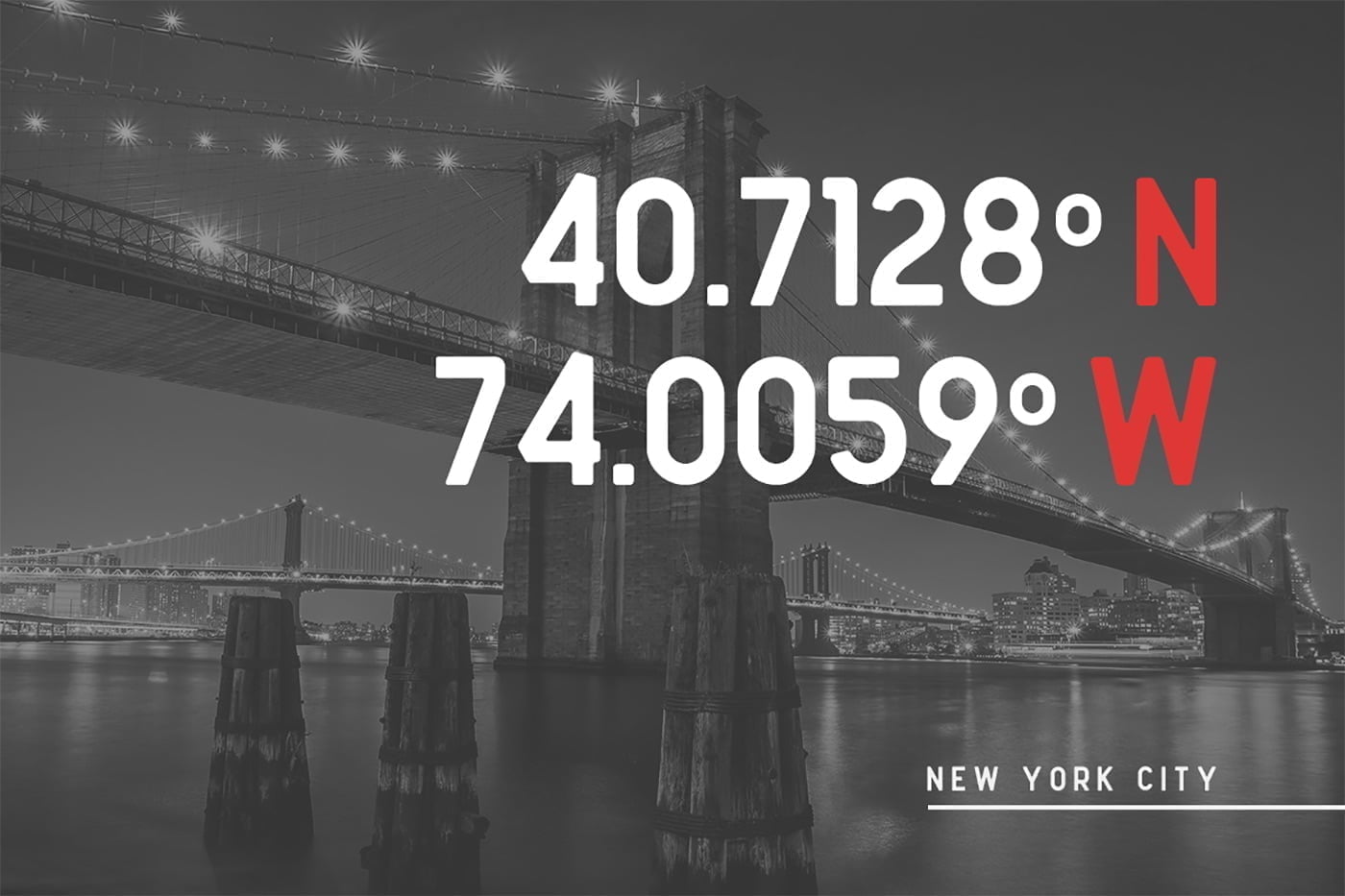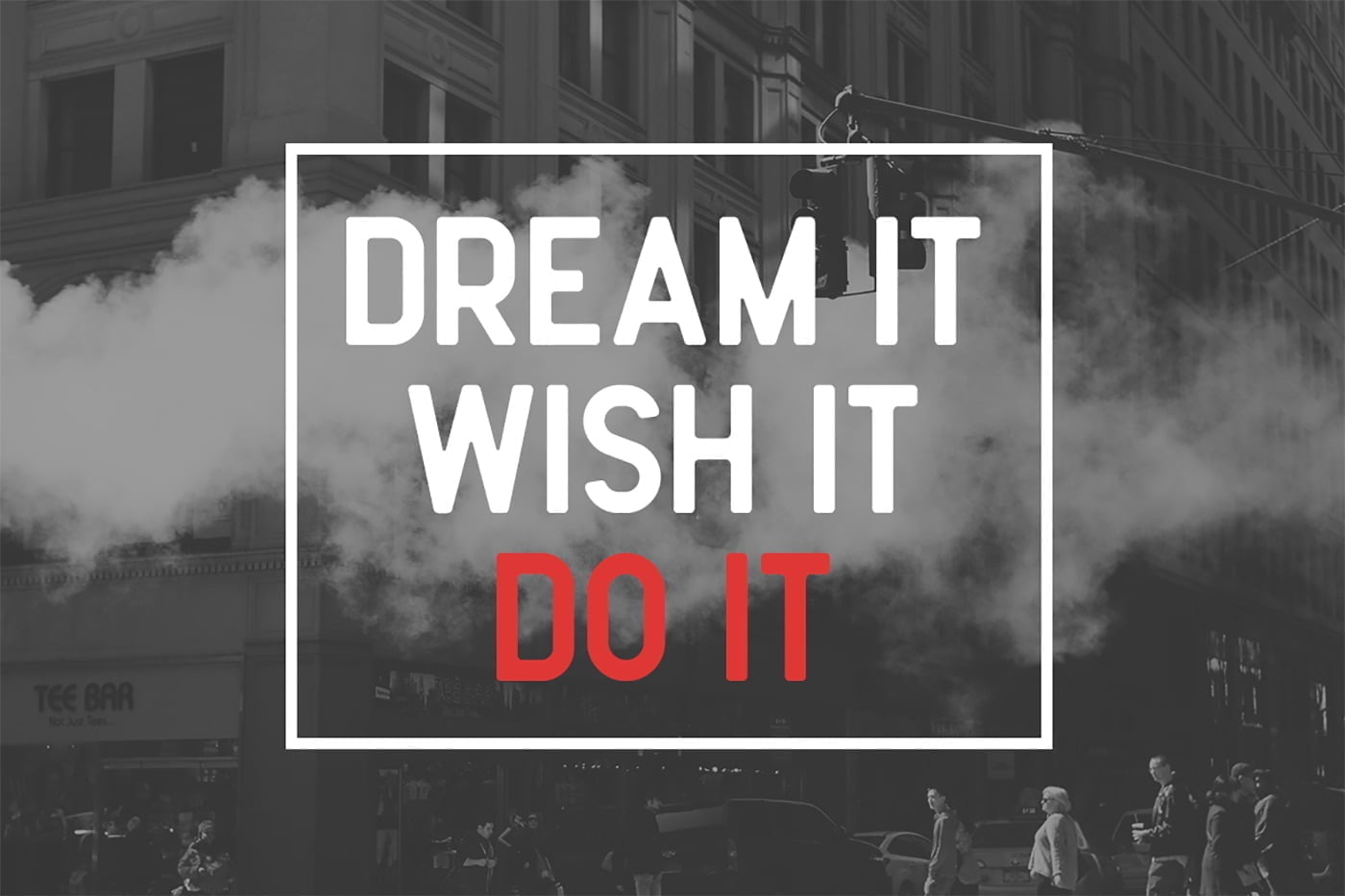
Roger Sans is a clean and simple vintage sans serif font, with smooth edges to simulate vintage design. This font has been designed for many different projects: quotes, blog header, poster, wedding, branding, logo, fashion, apparel, lettering and invitations.
• Basic Latin A-Z and a-z
• Numerals & Punctuation
Roger Sans